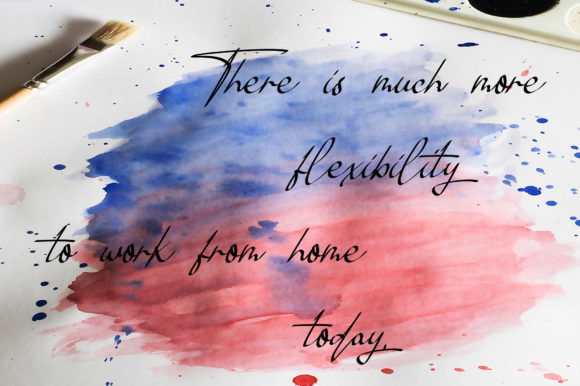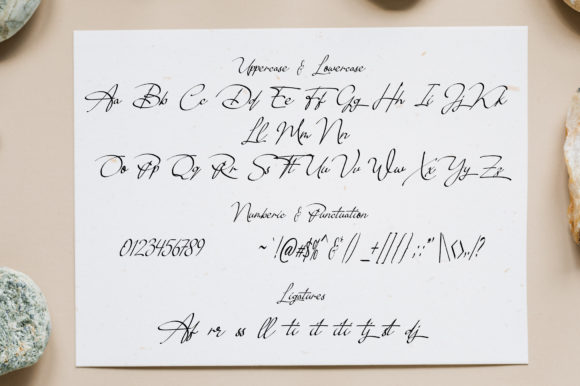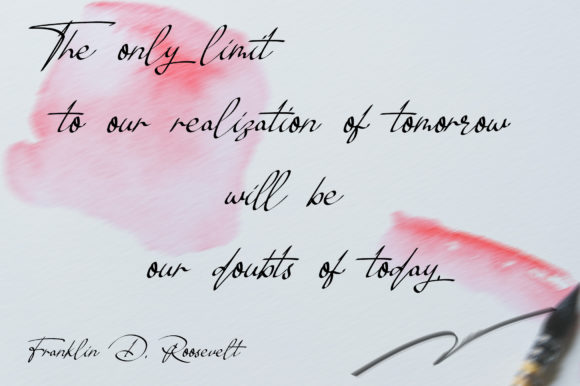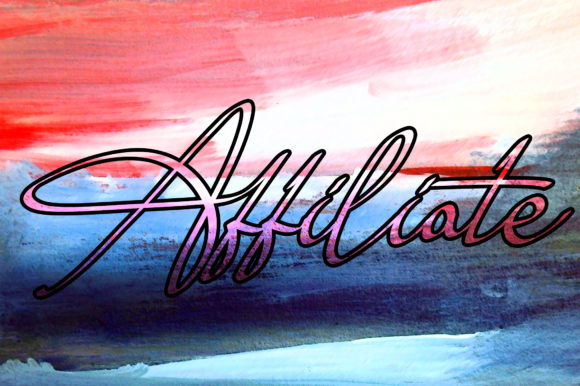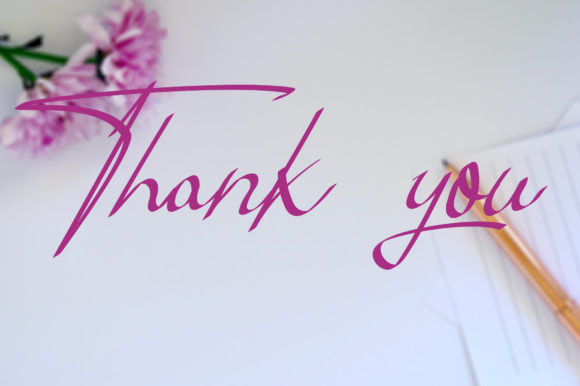
Introduction to Objectyve Font
Have you ever been working on a creative project and just can’t seem to find the right font to bring it all together? The perfect combination of style and sophistication can make all the difference in making your design truly shine. That’s where the Objectyve Font comes in – a beautiful, high-quality script font that adds a touch of elegance to any project.
Whether you’re a seasoned designer or just starting out, Objectyve Font is a valuable resource that can help take your designs to the next level. With its thin lettered and flowing script style, it’s perfect for adding a delicate touch to your favorite creations. And the best part? It’s available for free download, making it an accessible design resource for anyone.
Key Features of Objectyve Font
- High-quality design resource for creative projects, featuring a unique and modern aesthetic.
- Includes a comprehensive character set, including uppercase and lowercase letters, numbers, and punctuation marks.
Honest Review: Objectyve Font
I recently had the chance to work with the Objectyve Font, and I must say it’s a game-changer for any creative project. As a designer, I’m always on the lookout for high-quality design resources that can elevate my work, and Objectyve Font definitely delivers.
- ✨ High-quality font styles with a unique and modern aesthetic
- ✨ Perfect for use on a transparent background, which adds an extra layer of depth and visual interest
- ⚠️ Limited font weight options, which may not be suitable for every design project
- ⚠️ Some users may find the font too modern or trendy, which may not be suitable for every design style
Overall, I’m really impressed with Objectyve Font and would definitely recommend it to fellow designers. Its unique style and high-quality design make it a great addition to any creative project. While it may have some limitations, it’s a great resource to have in your design toolkit.
Tips for Getting the Most Out of Objectyve Font
To get the most out of Objectyve Font, use it in conjunction with other design elements to create a cohesive visual identity. Experiment with different font sizes, styles, and colors to create a unique look. You can also use Objectyve Font in combination with other design resources to create a high-quality design.
Common Use Cases for Objectyve Font
Objectyve Font is commonly used in creative projects, such as logo design, branding, and graphic design. It’s also used in presentations, documents, and social media graphics. With its high quality and transparent background, Objectyve Font is a versatile design resource that can be used in a variety of applications.